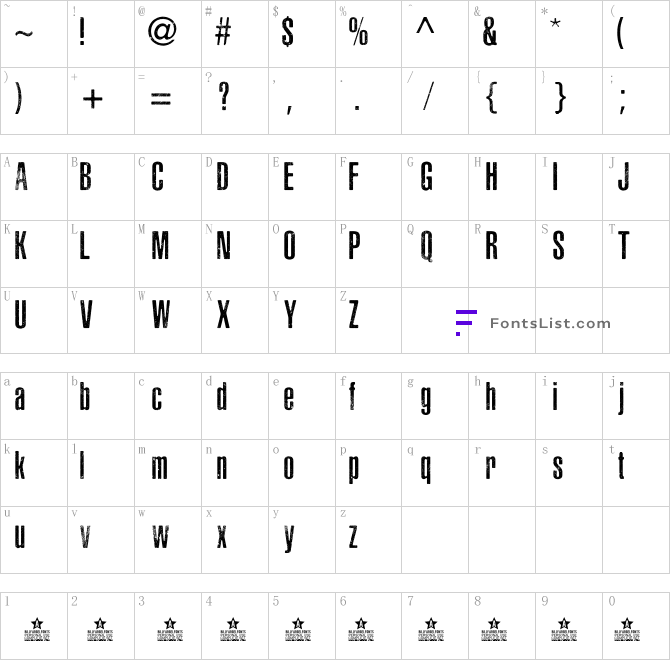
ASPHALTIC-SCRATCH-ROUNDED-PERSONAL-USE.ttf is a very beautiful artistic font, ASPHALTIC-SCRATCH-ROUNDED-PERSONAL-USE.ttf is widely used in the design and printing of various books and pictures,ASPHALTIC-SCRATCH-ROUNDED-PERSONAL-USE.ttf has a strong visual impact,ASPHALTIC-SCRATCH-ROUNDED-PERSONAL-USE.ttf is a commonly used font in newspapers, magazines and books, and is used in posters, e-commerce Poster design, store design, logo design, font design and other fields.ASPHALTIC-SCRATCH-ROUNDED-PERSONAL-USE.